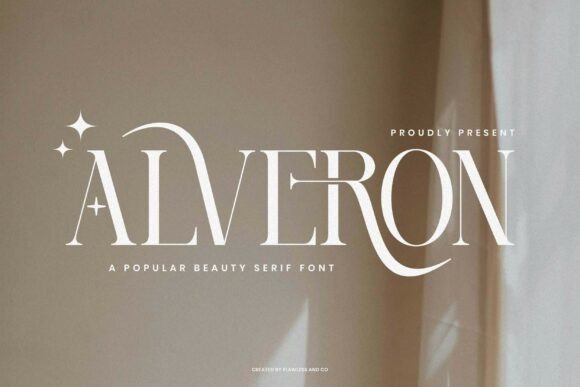
The Perfect Balance of Classic and Contemporary: Introducing the Alveron Font
You know that moment when you’re designing a project, and you just can’t seem to find the right font to bring it all together? The words on the page feel dull, the logo looks bland, and you’re about to give up when suddenly, inspiration strikes. You stumble upon a font that makes everything fall into place, and you know you’ve found the perfect match. For many designers, that moment is often linked to the Alveron Font, a modern serif typeface designed to bring elegance, sophistication, and confidence to any design.
The Alveron Font is crafted with versatility in mind, making it the perfect choice for branding, editorial design, packaging, logo design, and more. With its refined contrast, sharp serifs, and graceful curves, this font strikes the perfect balance between classic beauty and contemporary style. Whether you’re a seasoned designer or just starting out, the Alveron Font is an invaluable asset to have in your toolkit.
Alveron Font Key Features
- Font Family: Alveron Font is a high-quality, professional font family available in multiple weights and styles.
- Character Count: The font family includes a wide range of characters, including Latin, Cyrillic, and Greek alphabets, as well as punctuation and symbols.
- Unique Characteristics: Alveron Font features a unique blend of modern and classic design elements, with clean lines, elegant curves, and a sophisticated feel.
Alveron Font Review
Overall, I’m quite impressed with the Alveron font. It has a unique and elegant aesthetic that can add a touch of sophistication to any design project. ✨
Here are some of the things that work well with Alveron:
- ✨ Highly legible even at smaller font sizes
- ✨ Beautifully crafted italic and bold variations
- ✨ Support for a wide range of languages
- ⚠️ Limited character set support for some Asian languages
- ⚠️ May not be the best choice for projects requiring a more playful or casual tone
Despite these limitations, I think Alveron is a solid choice for designers looking for a high-quality, elegant font. Its versatility and legibility make it a great addition to any font library.
Alveron Font Practical Application Guide
Tips for Getting the Most Out of Alveron Font
For optimal results, use the Alveron font in combination with other elegant and modern design elements. Experiment with different font sizes, colors, and styles to create visually appealing designs. Avoid overusing the font, as it can become overwhelming.
The Alveron font is ideal for use in modern branding, corporate designs, and elegant typography projects. It pairs well with minimalist and sophisticated design styles.
Alternatives to Alveron Font
Montserrat is a sans-serif font that originated in Argentina. It’s perfect for digital interfaces, signage, and mobile applications. Montserrat is more geometric and clean compared to Alveron Font, making it ideal for modern and minimalist designs.
Comparison: Montserrat is more condensed and has a bolder feel than Alveron Font, which is more elegant and refined. Use Montserrat when you need a font that’s easy to read in small sizes and conveys a sense of modernity.
Merriweather is a classic serif font that’s perfect for print materials, such as books, magazines, and brochures. It’s also suitable for digital interfaces that require a more traditional and elegant look. Merriweather is more formal and traditional compared to Alveron Font, which is more modern and versatile.
Comparison: Merriweather is more ornate and has a more classical feel than Alveron Font, which is more streamlined and modern. Use Merriweather when you need a font that conveys a sense of sophistication and tradition.